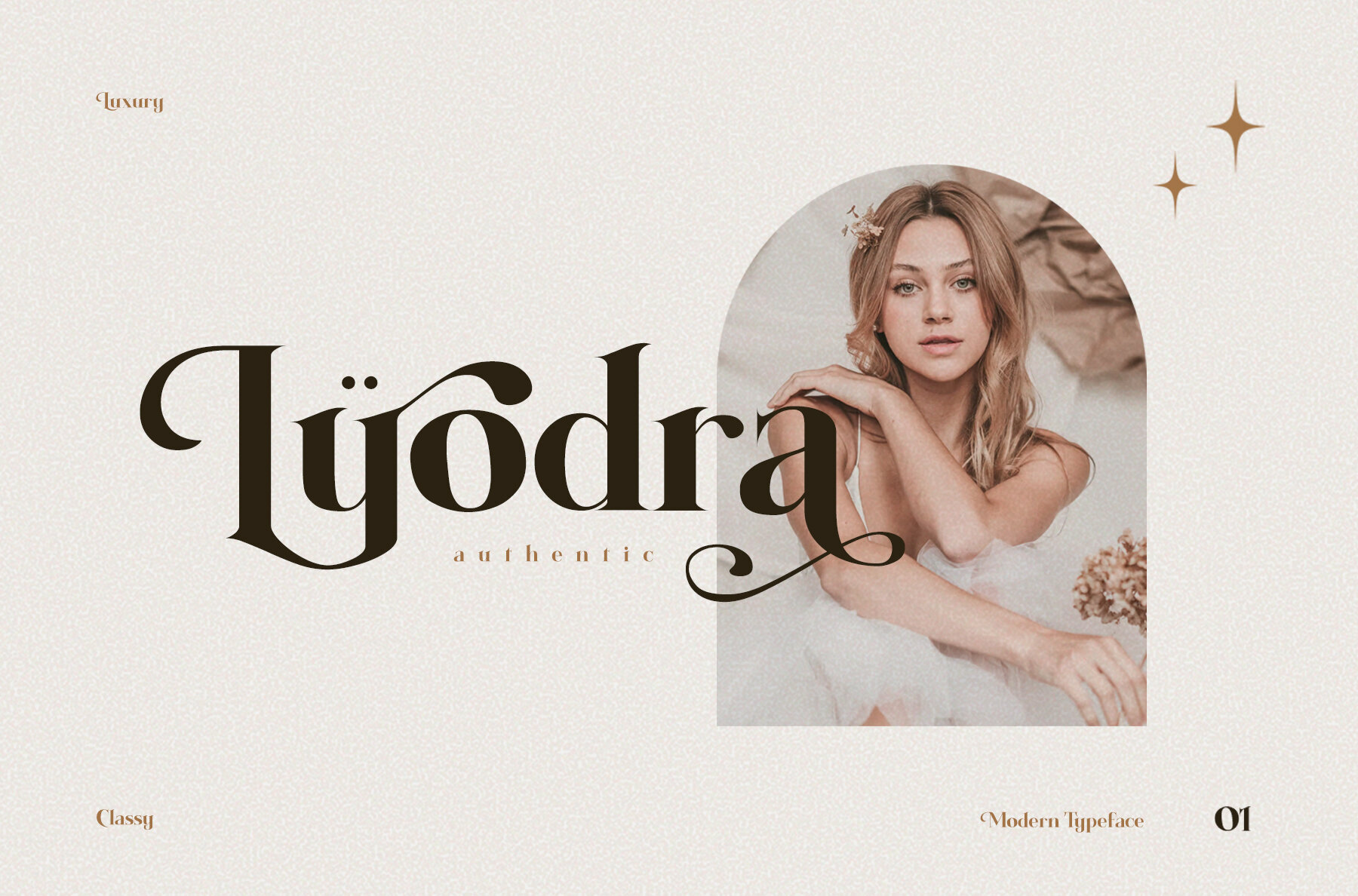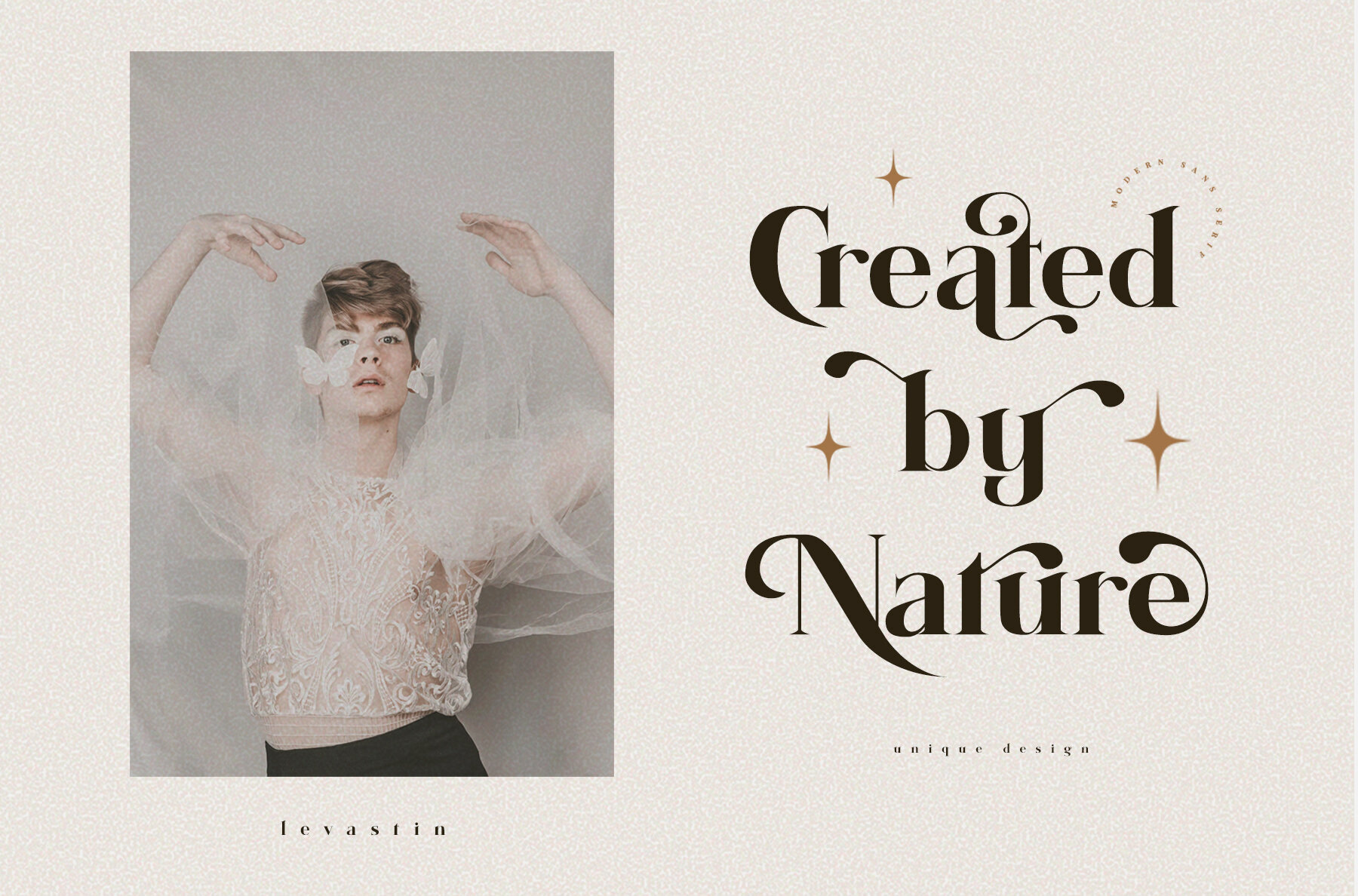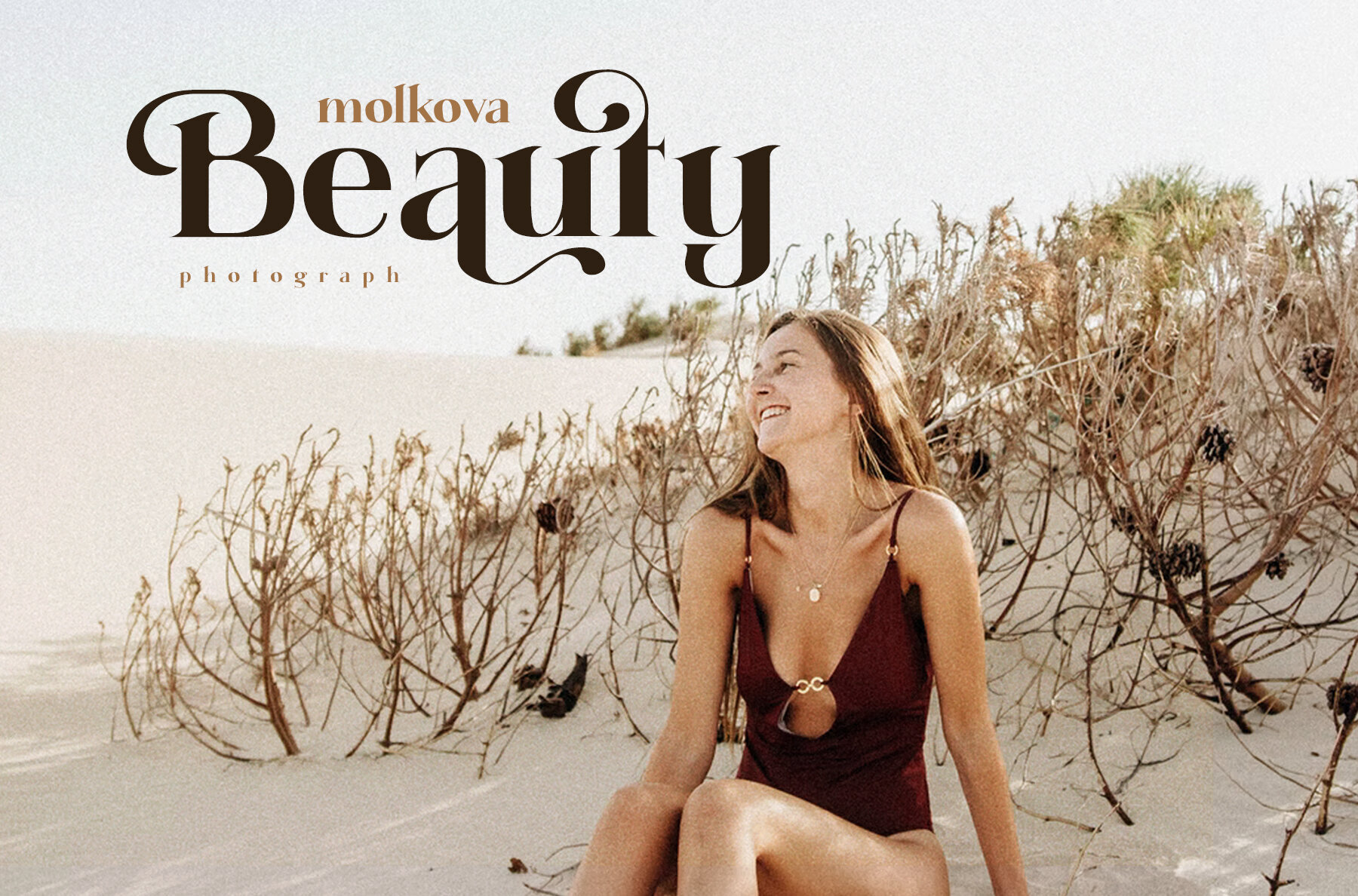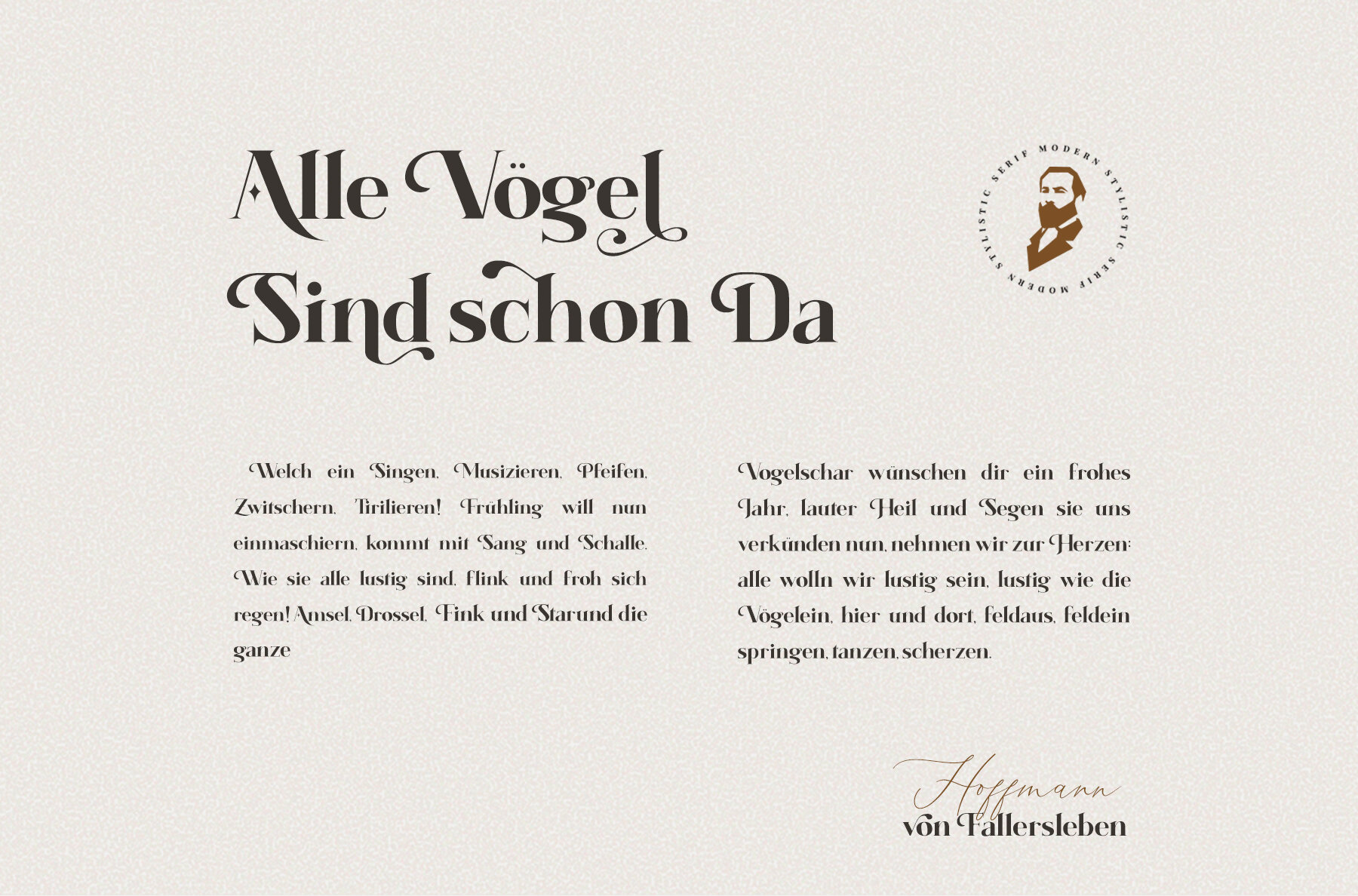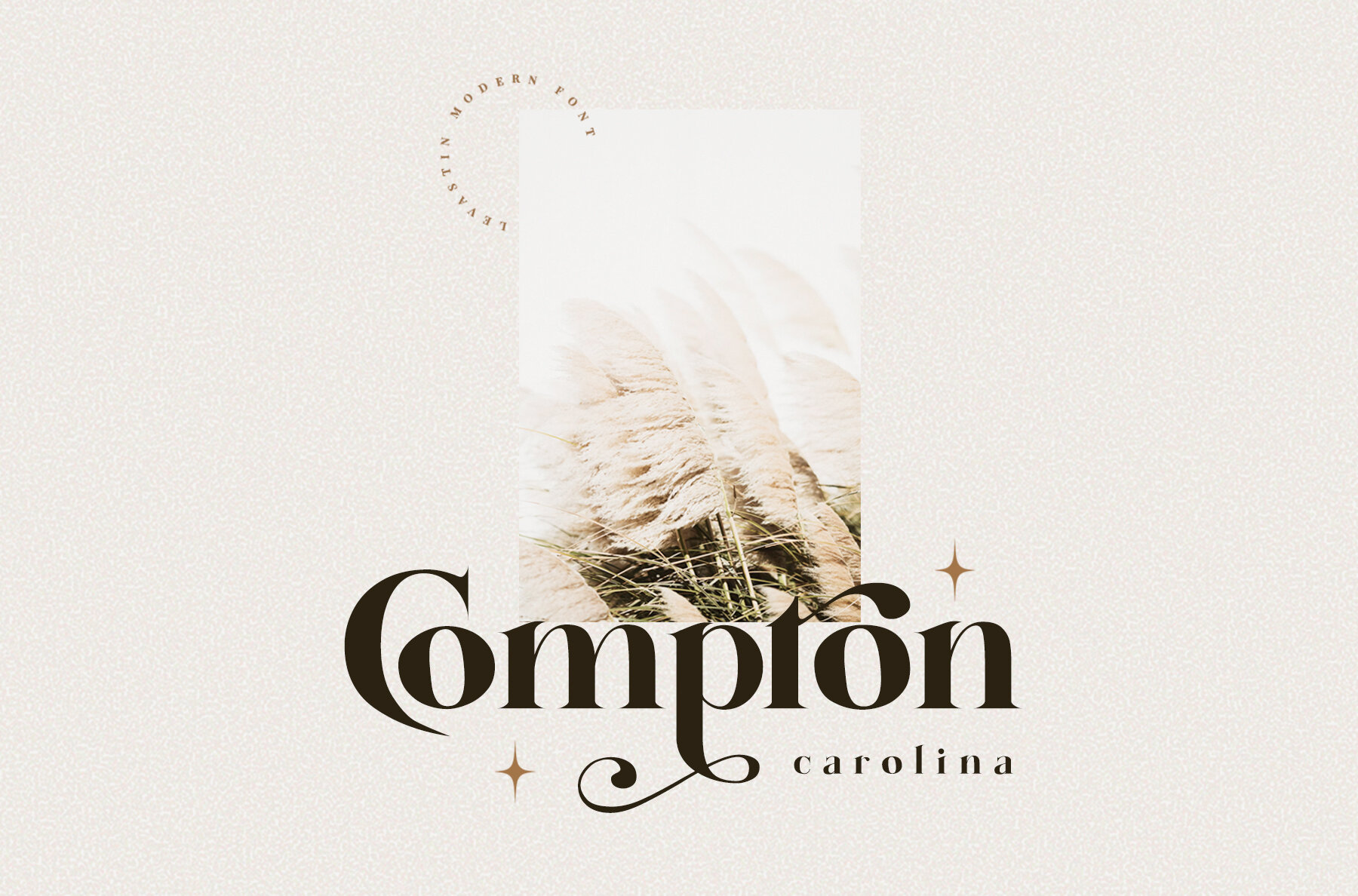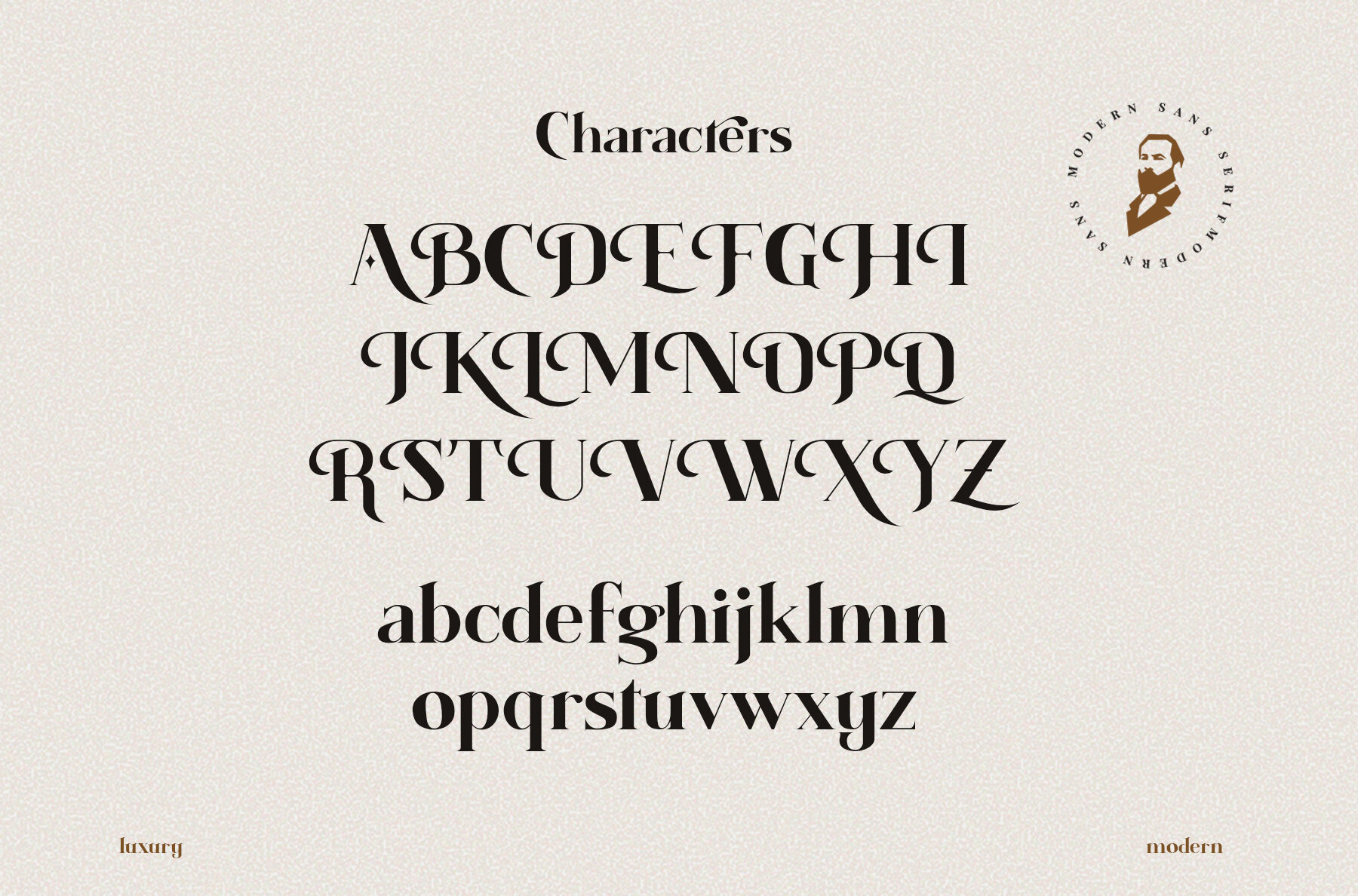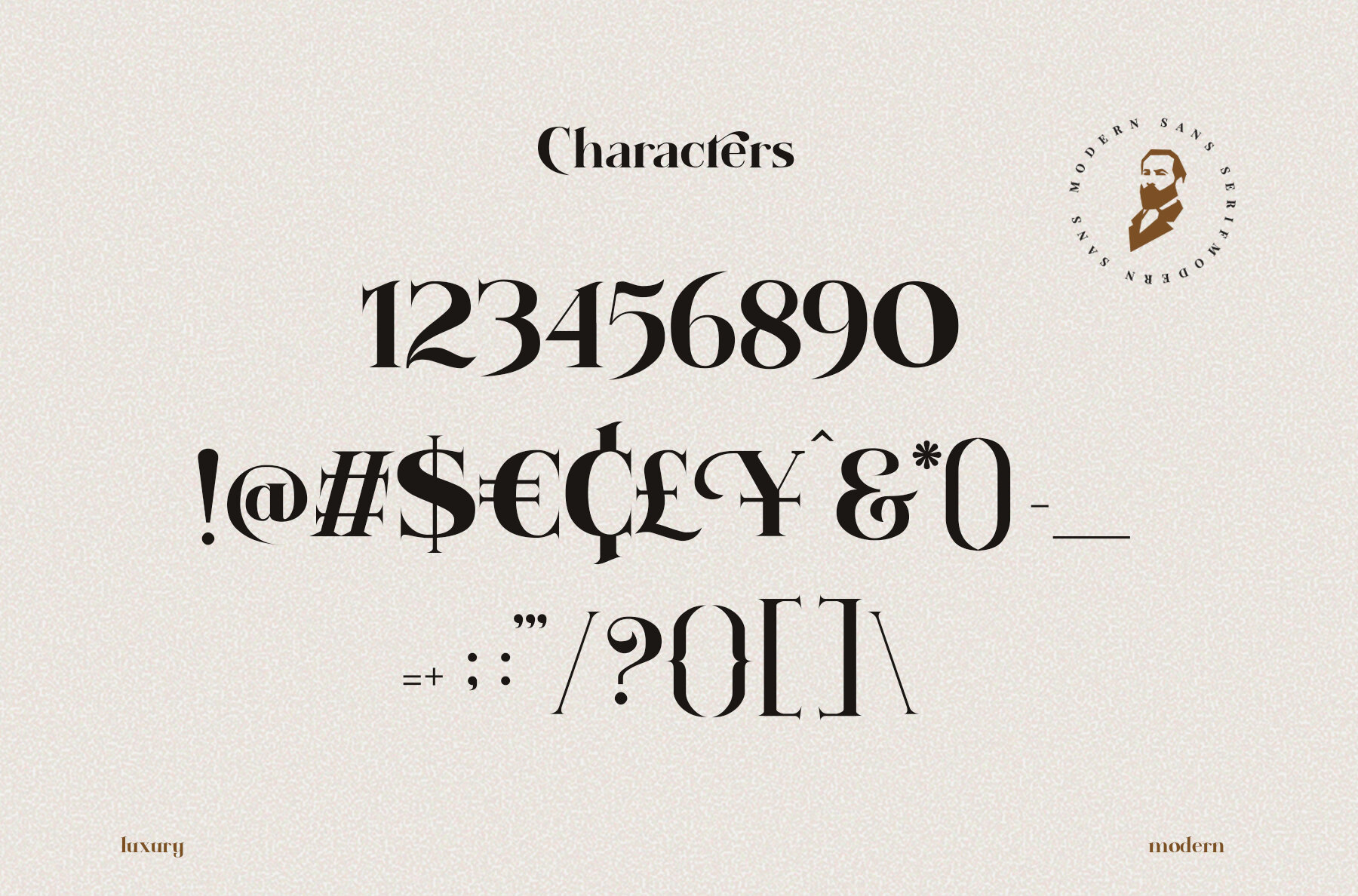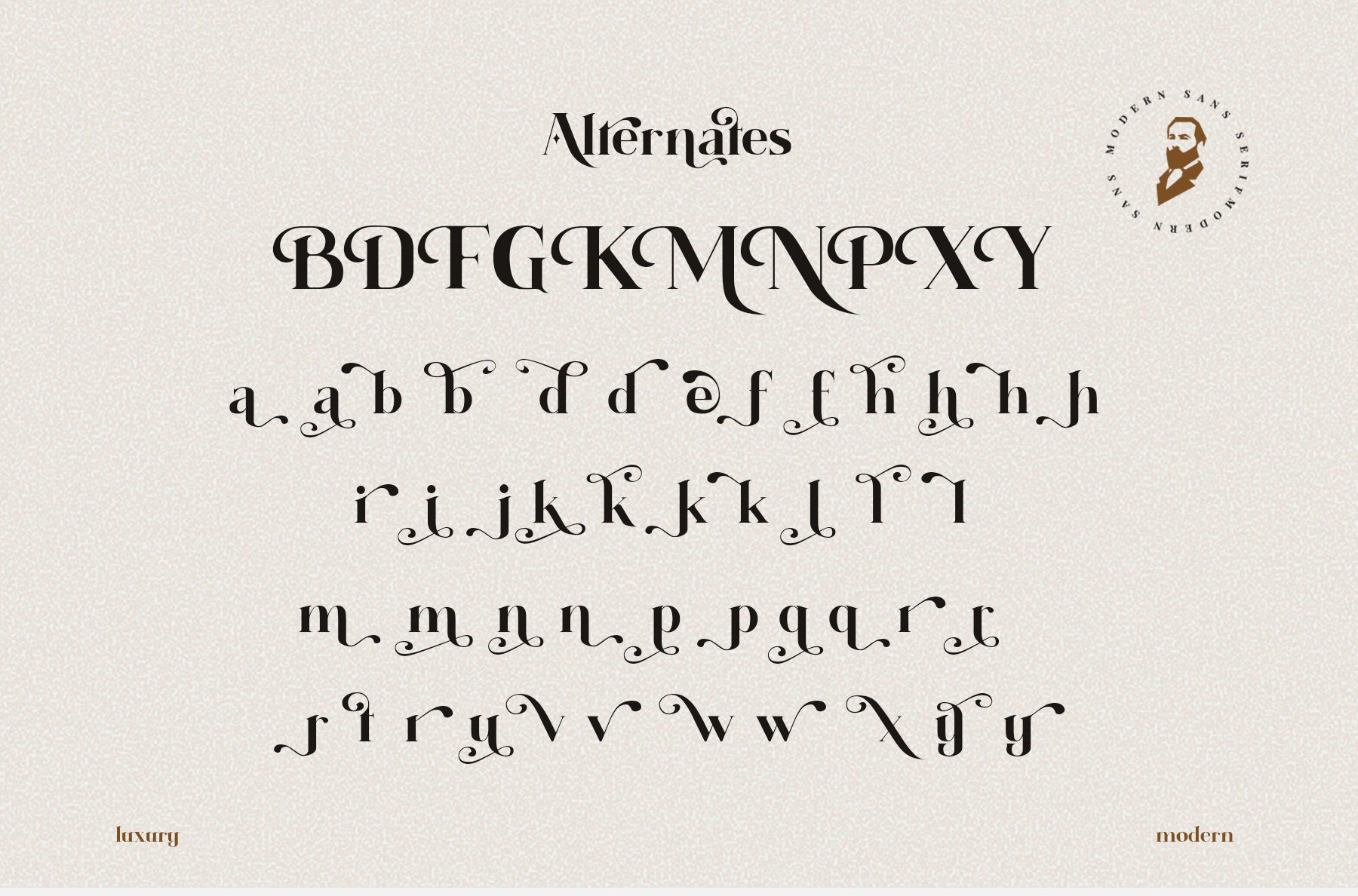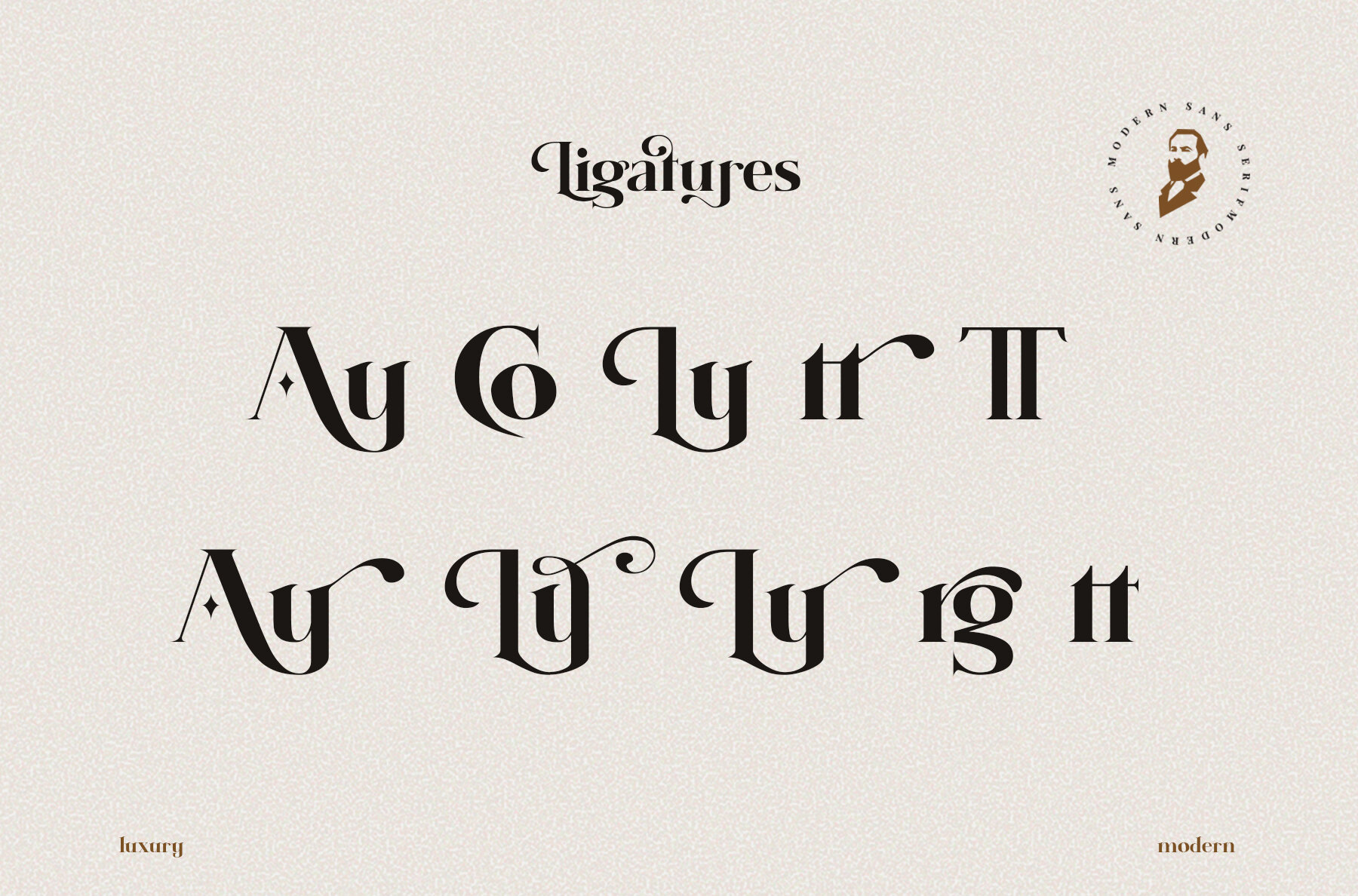
Levastin Font
levastin regular
Introducing Levastin, a beautiful modern font that exudes elegance and luxury. If you're seeking a typeface that offers a taste of sophistication, Levastin is the perfect choice. It enhances your design with a lavish flair, making it truly stand out. This font supports multiple languages and offers OpenType features such as alternate letters and ligatures, allowing you to customize your typography to your liking. With Levastin, your design is bound to impress. Enjoy creating with this luxurious font!